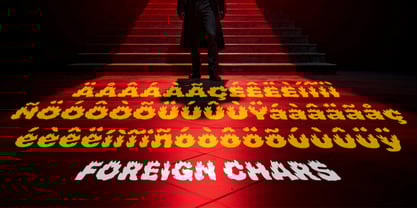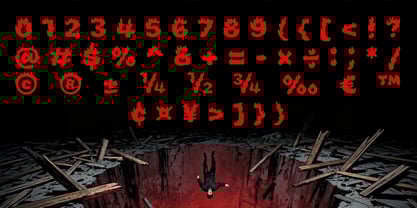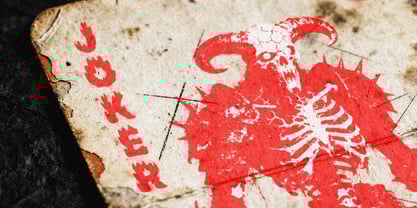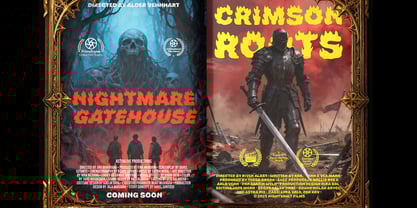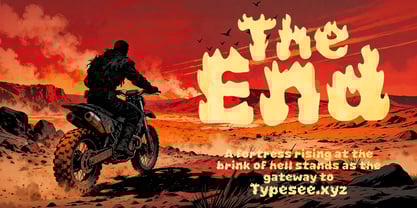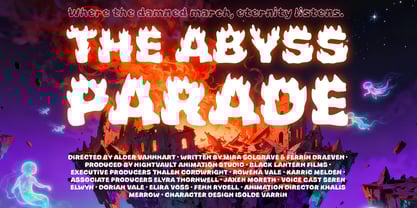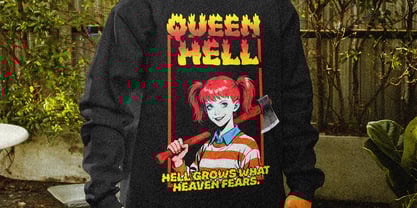
Inferno Bloom
by Typesee
The Inferno Bloom Font Family was designed by Rizka Prayuda, Muhammad Mirza Azhmi and published by Typesee. Inferno Bloom contains 4 styles and family package options.
Inferno Bloom is a fierce and electrifying dark-fantasy display font forged from the visual essence of erupting volcanoes, molten lava, and burning embers. Each letter is crafted with sharp, flame-like silhouettes that evoke heat, chaos, and raw elemental power. Its rugged, fiery forms make it an ideal choice for fantasy artwork, metal band graphics, video game titles, horror themes, and dramatic promotional visuals. Designed to command attention, Inferno Bloom stands out with bold, high contrast shapes that glow with intensity. Whether used for branding, headlines, posters, or thematic typography, this font injects explosive energy and dark mystique into every project. Step into the fire and let your design ignite with Inferno Bloom.
Designers: Rizka Prayuda, Muhammad Mirza Azhmi
Publisher: Typesee
Foundry: Typesee
Design Owner: Typesee